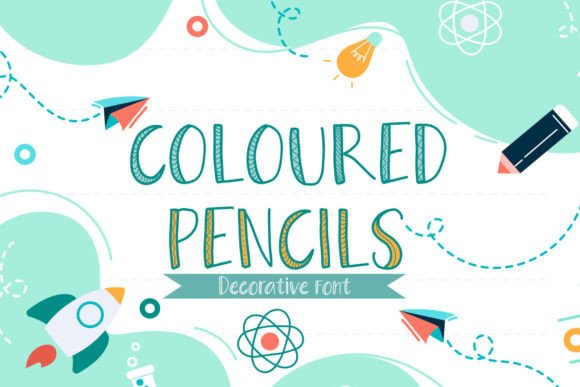
Introducing Coloured Pencils Font: A Cute Decorative Font to Elevate Your Designs
Are you tired of using the same old fonts in your designs? Do you want to add a unique and memorable edge to your graphics? Look no further than the Coloured Pencils font! This adorable decorative font is perfect for designers and crafters who want to take their creations to the next level.
What is Coloured Pencils Font?
Coloured Pencils font is a digital font that mimics the look of colored pencils. It’s a cute and playful font that’s perfect for adding a touch of whimsy to your designs. The font features colorful, hand-drawn letters that are sure to grab attention. Whether you’re creating graphics for a children’s book, a craft project, or a social media post, this font is sure to delight.
Why You’ll Love Coloured Pencils Font
So, what makes Coloured Pencils font so special? Here are just a few reasons why you’ll love adding this font to your library:
- Unique and Memorable: The Coloured Pencils font is unlike any other font you’ll find. Its colorful, hand-drawn letters are sure to make your designs stand out from the crowd.
- Versatile: This font is perfect for a wide range of projects, from children’s books and craft projects to social media graphics and more.
- High-Quality: The Coloured Pencils font is a high-quality font that’s been carefully crafted to ensure that it looks great in any design.
- Pair it with Other Fonts: The Coloured Pencils font looks great when paired with other fonts. Try pairing it with a bold font for a fun and playful look.
- Use it for Headings: The Coloured Pencils font is perfect for headings and titles. Use it to add a pop of color and interest to your designs.
- Experiment with Colors: One of the best things about the Coloured Pencils font is its colorful letters. Experiment with different colors to find the perfect look for your design.
The Coloured Pencils font is perfect for designers and crafters who want to add a unique touch to their creations. Whether you’re creating graphics for a client or working on a personal project, this font is sure to delight. Here are just a few ways you can use the Coloured Pencils font:
- Children’s Books: The Coloured Pencils font is perfect for children’s books. Use it to create fun and engaging illustrations that kids will love.
- Craft Projects: The Coloured Pencils font is great for craft projects, such as scrapbooking and card making. Use it to add a personal touch to your creations.
- Social Media Graphics: The Coloured Pencils font is perfect for social media graphics. Use it to create eye-catching graphics that will grab attention.